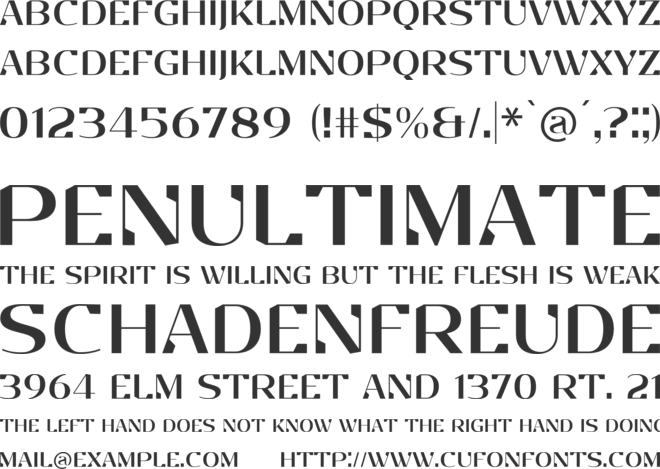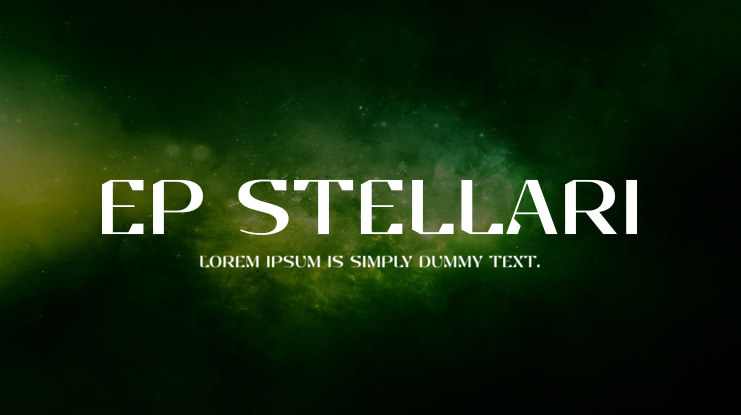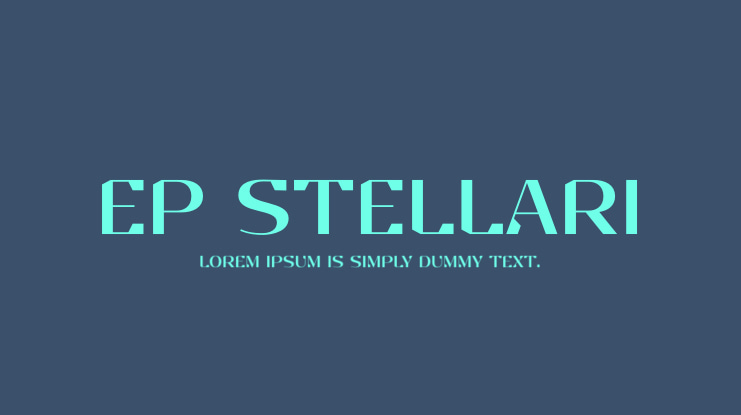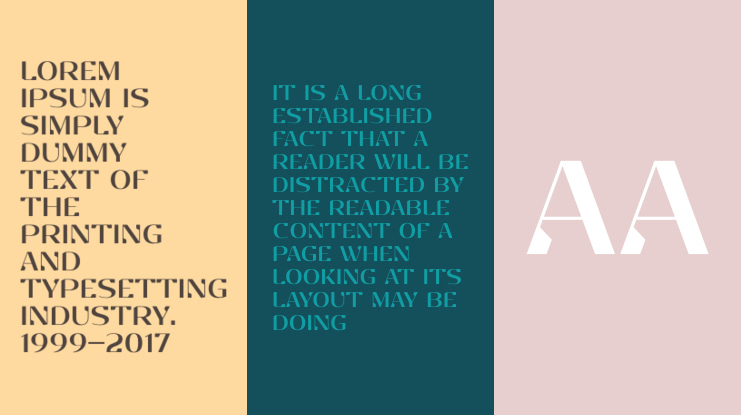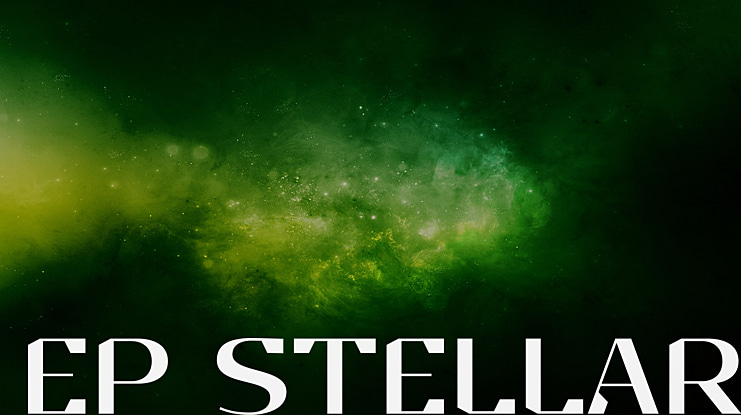
EP Stellari Font
Edy Pang
EP Stellari is a modern futuristic display font with a little bit of classic touch. Its construction is made from the combination of bold and thin lines, taking characteristics from common serif and strong futuristic forms.